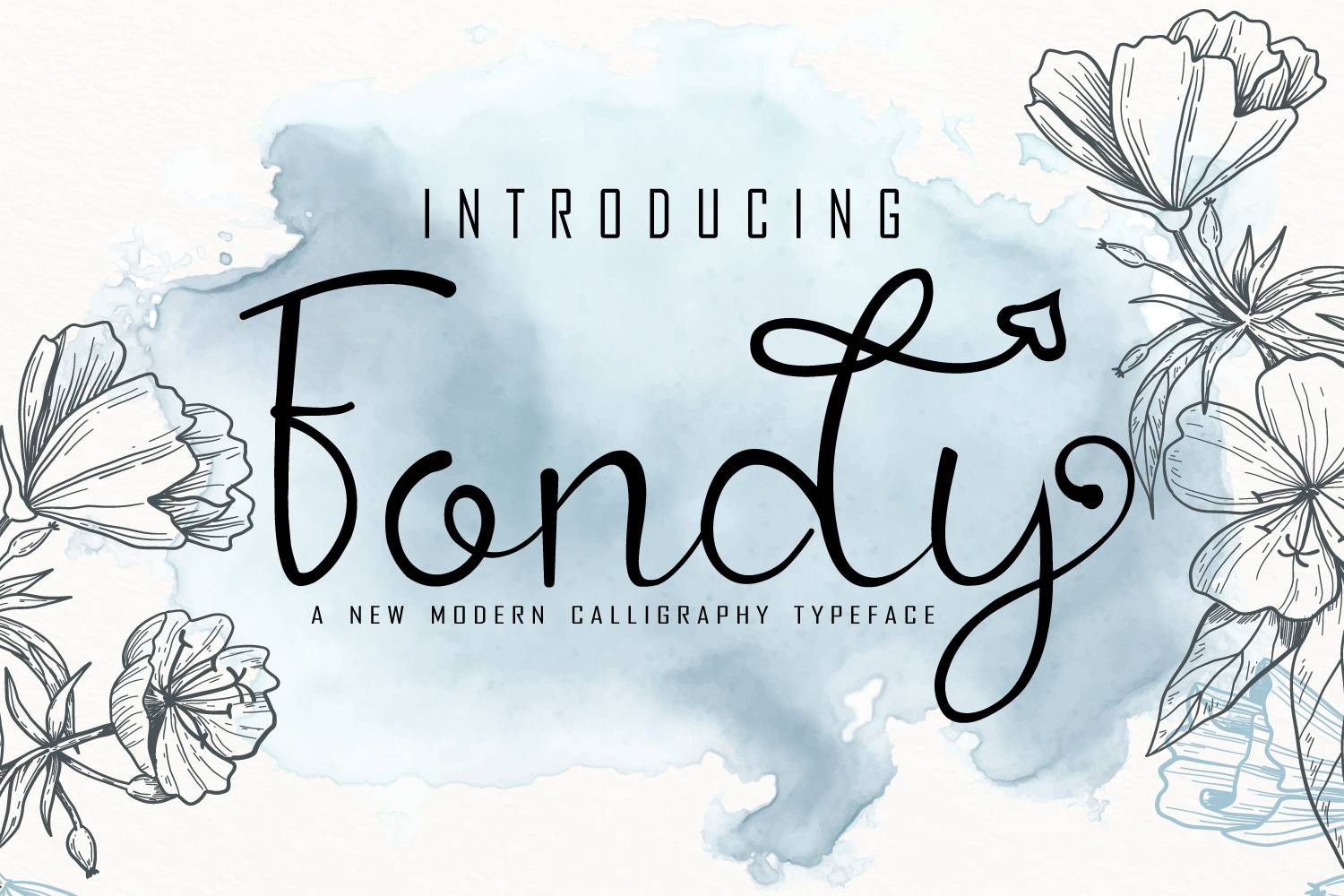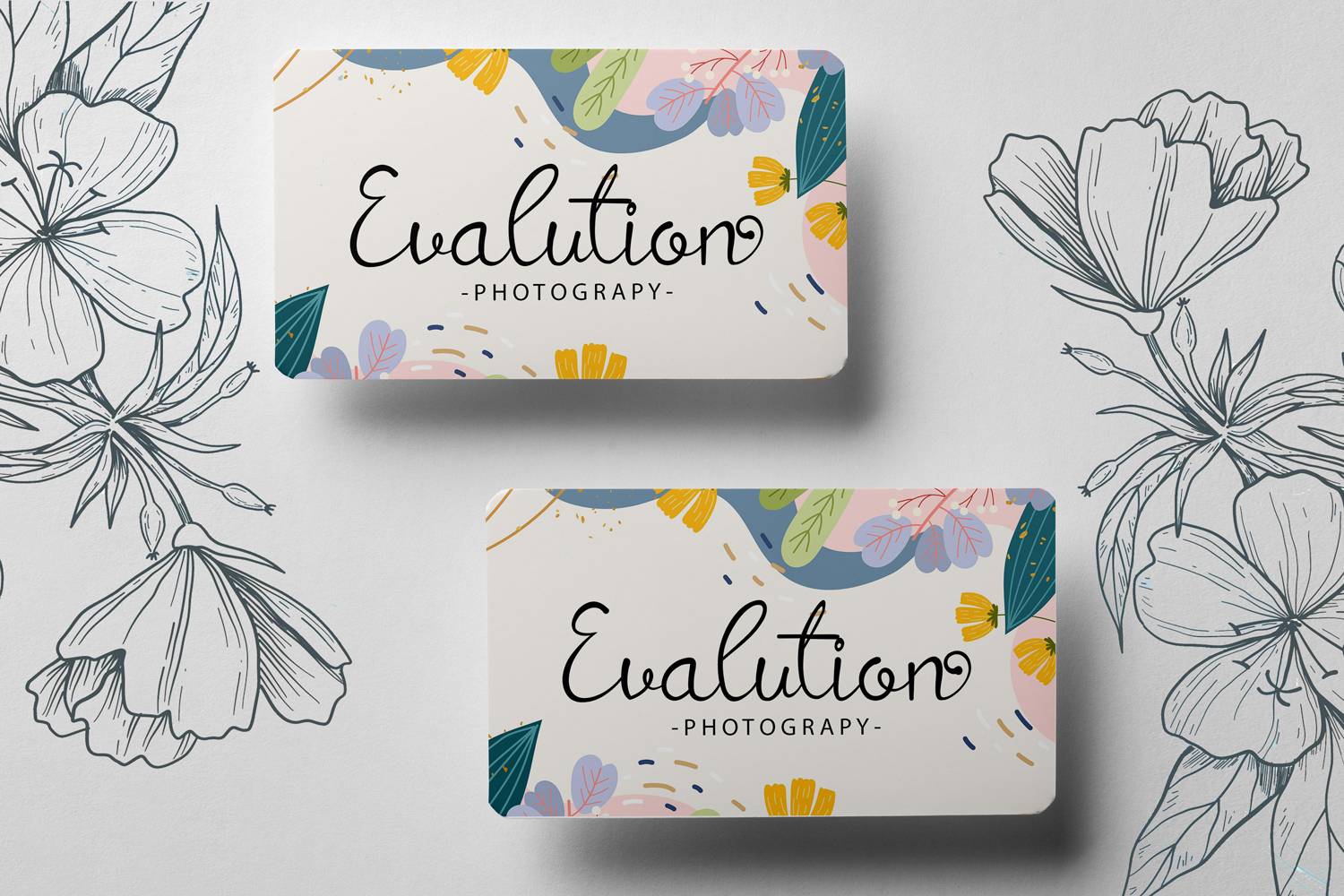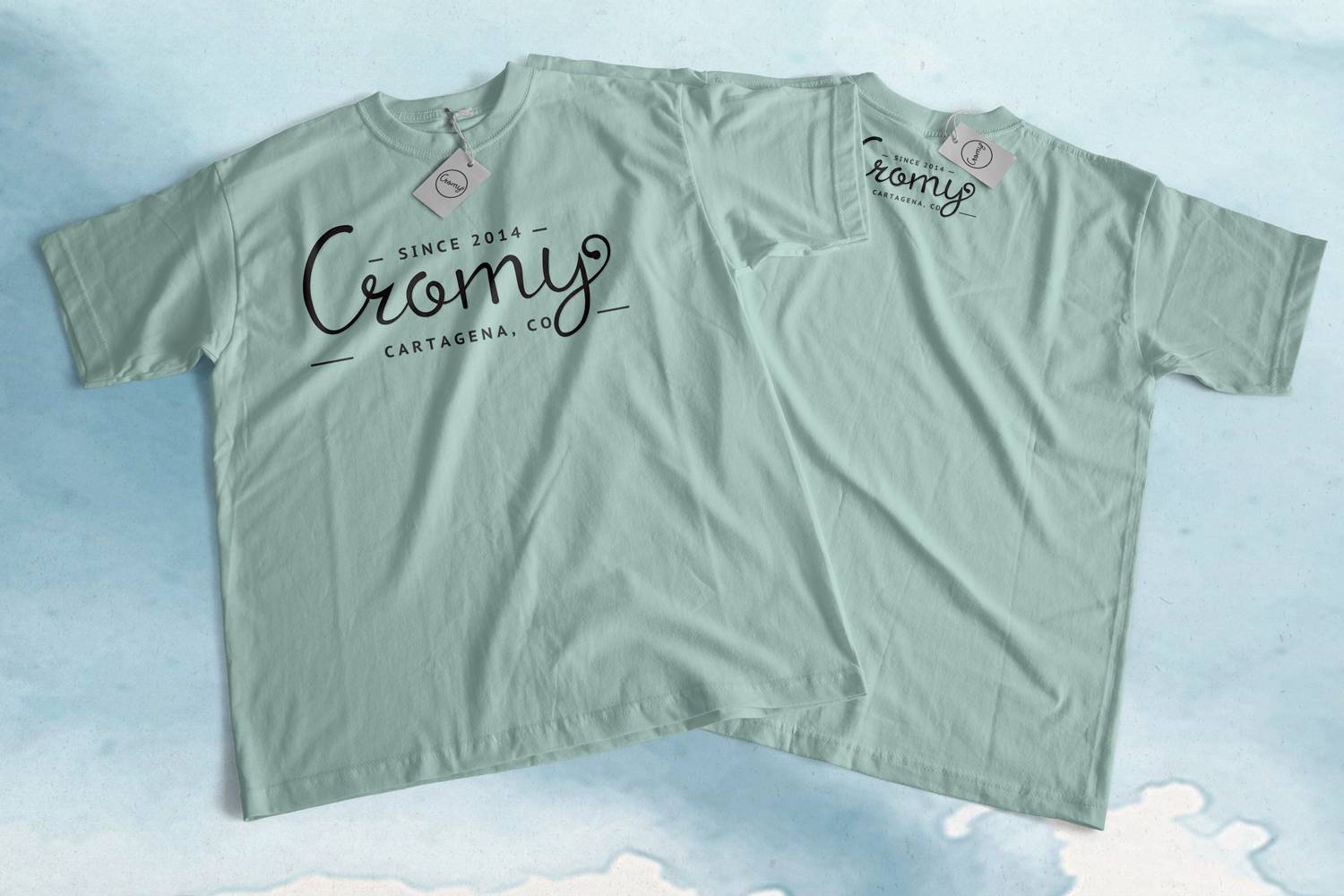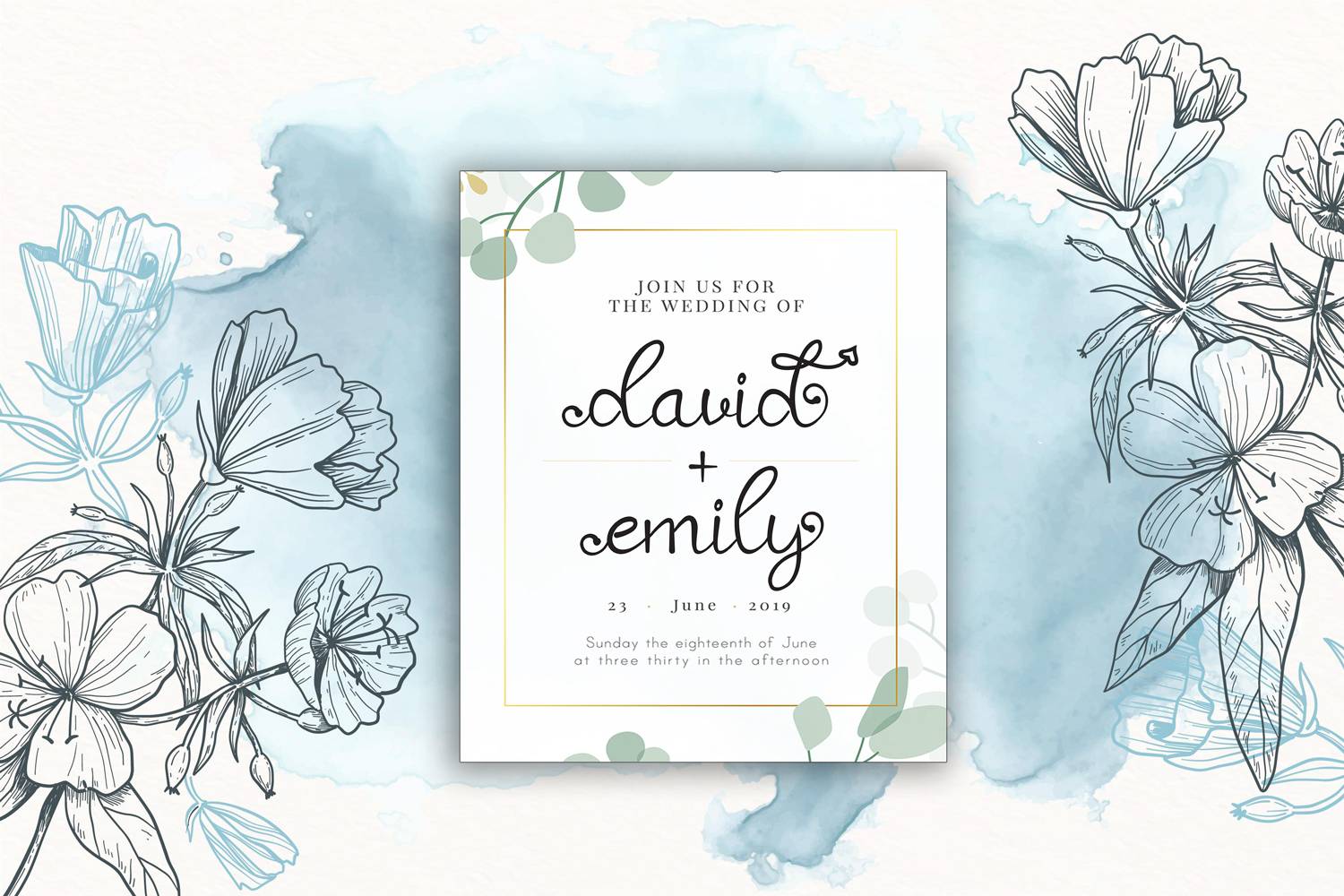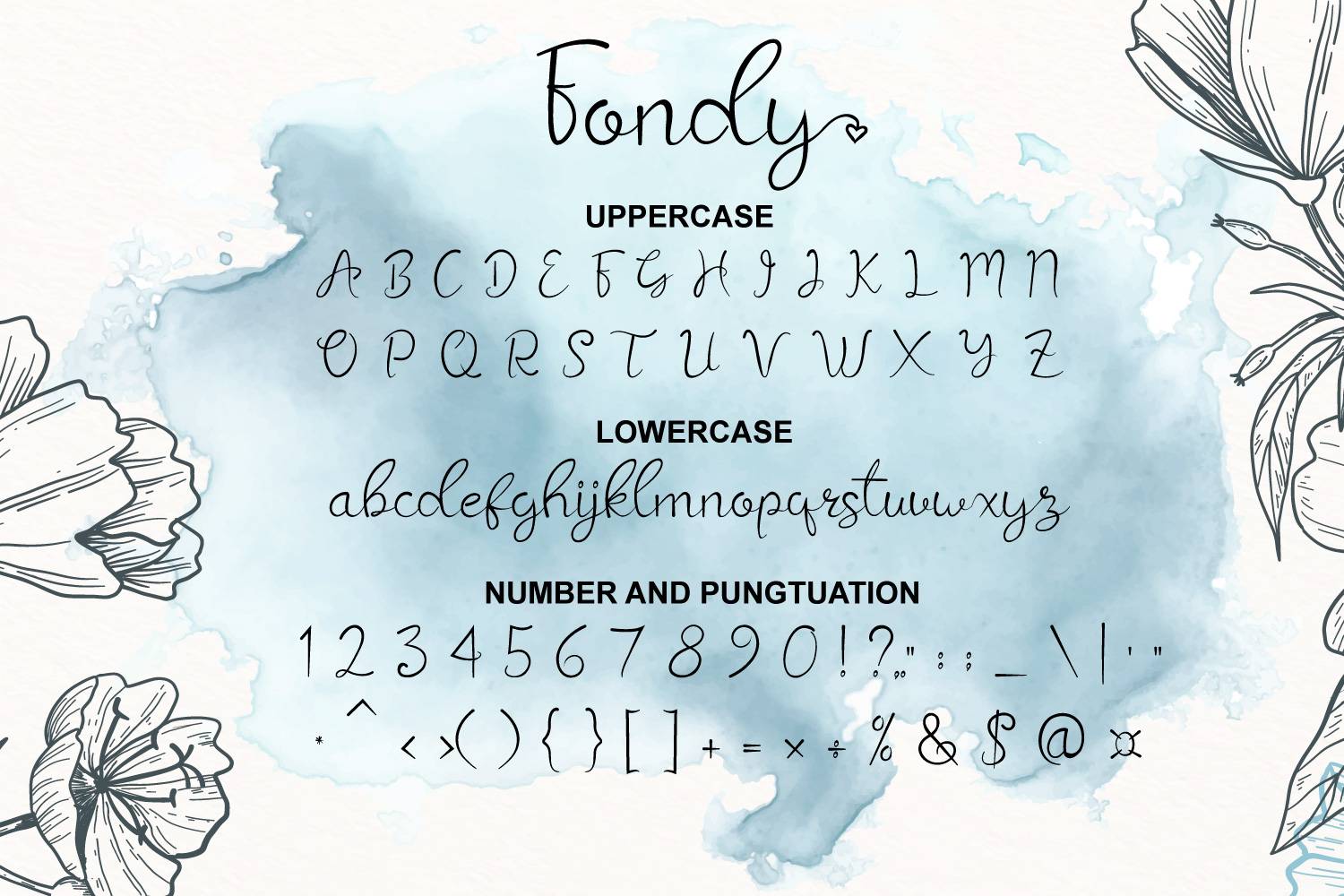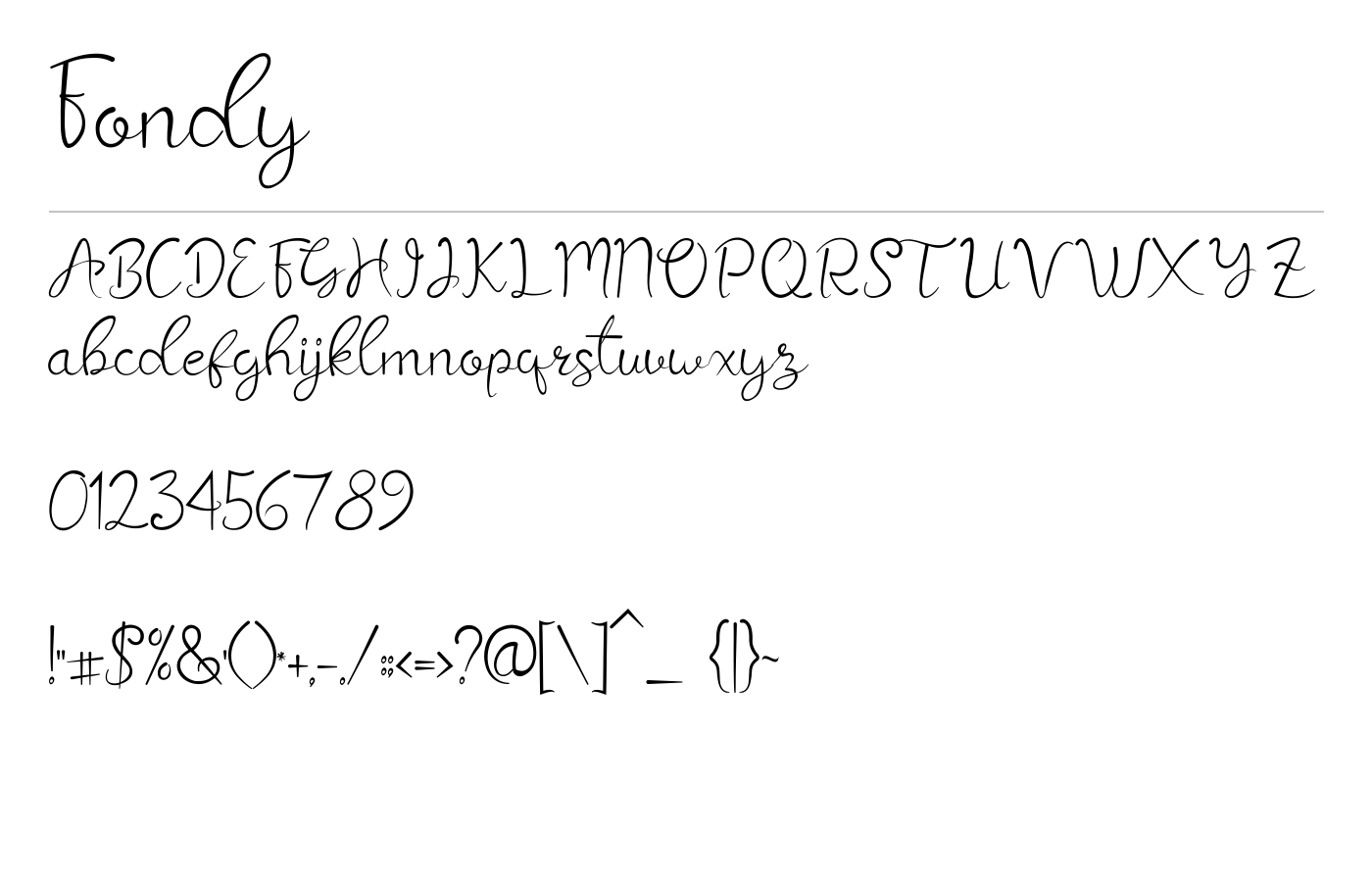
Fondy is a delicate script font with a light, airy feel and elegant, flowing letterforms that mimic natural handwriting. Its thin strokes and whimsical curves give it a friendly yet refined personality, making it ideal for invitations, branding, and creative projects where a personal, stylish touch is desired. This font works especially well for fashion or lifestyle brands and editorial headlines that seek a charming and sophisticated impression.
Fondy Font
About Fondy Font
| Font family | Fondy Font |